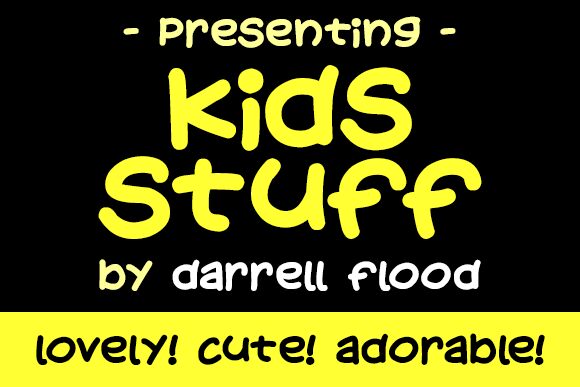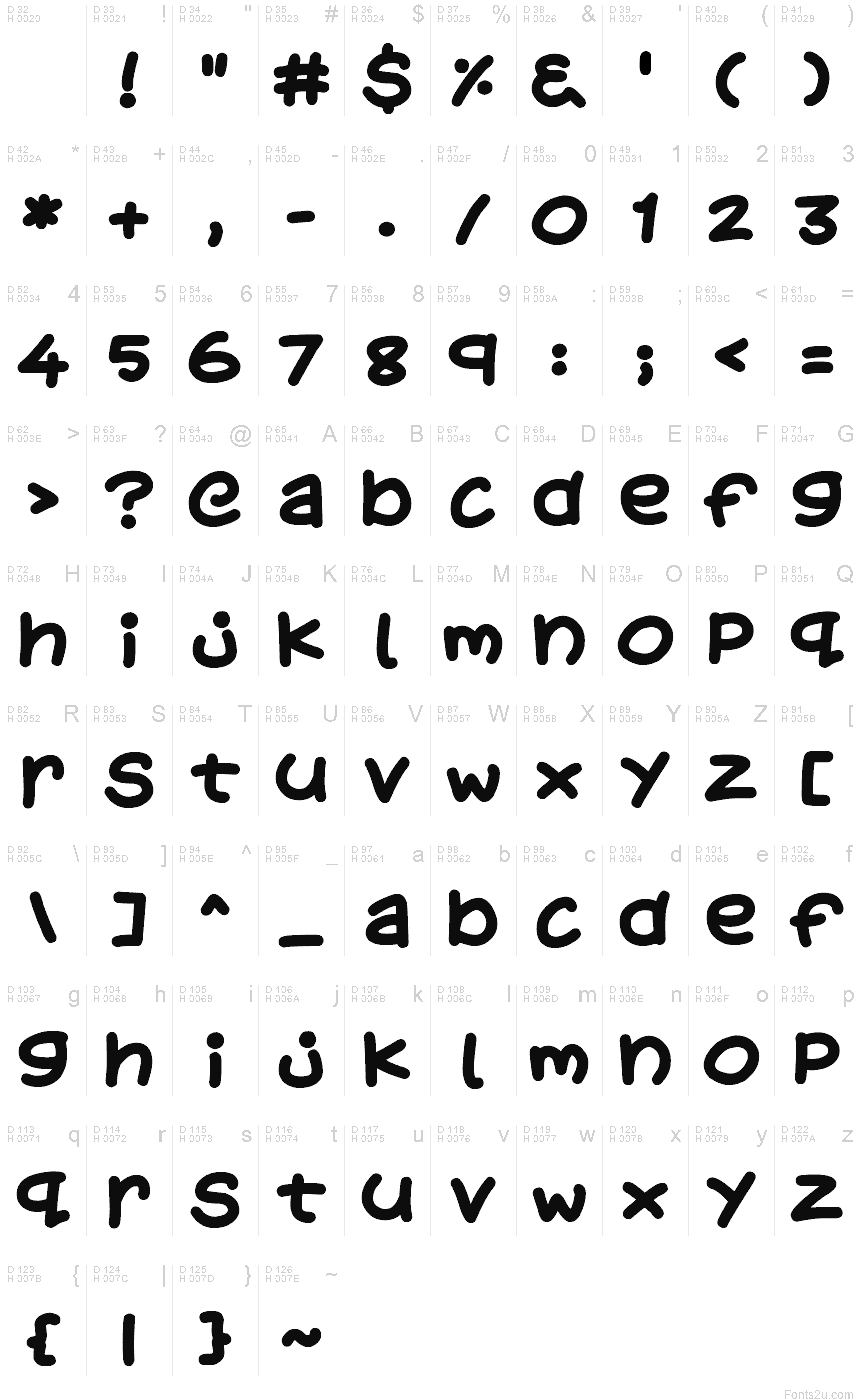
Kids Stuff by Darrell Flood is a free handwritten cartoon display font with thick, softly rounded strokes and a cheerful homemade shape. Its uneven letters lean and swell in different places, but the broad curves keep the lettering cohesive and easygoing.
Children's publishing and food packaging differ, yet both suit its friendly marker-drawn construction. It can bring a lively voice to classroom posters and toy branding. The rounded forms echo cut-paper or crayon illustrations, so the lettering can become part of a playful picture rather than just a caption.